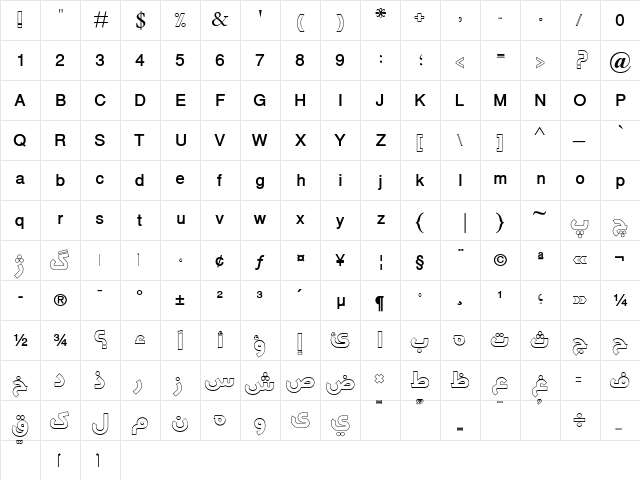
AGT Pul-i-Alam Bold
| Designer | Ahmad Gul Totakhyl |
Design Context for AGT Pul-i-Alam Typeface
AGT Pul-i-Alam is a composed and adaptable typeface that performs quietly and consistently across a wide range of design contexts. Its bold stroke weight gives it real presence on the page.